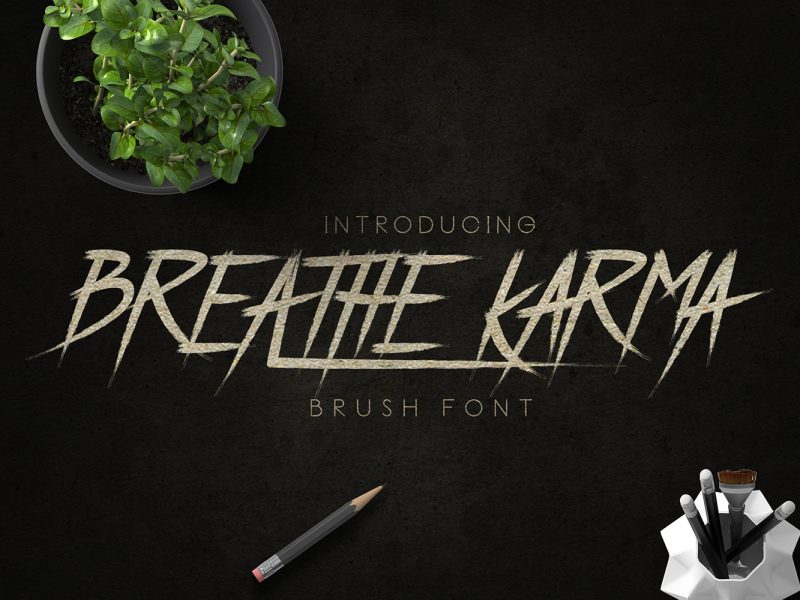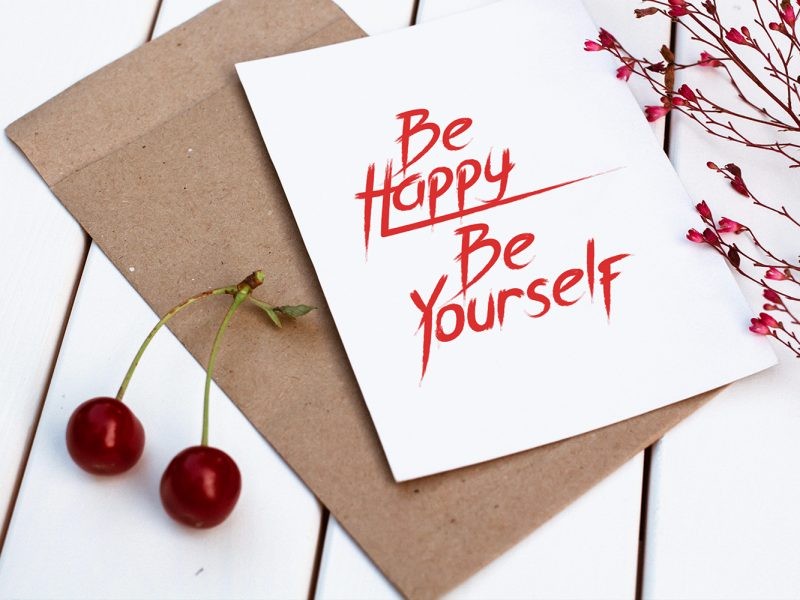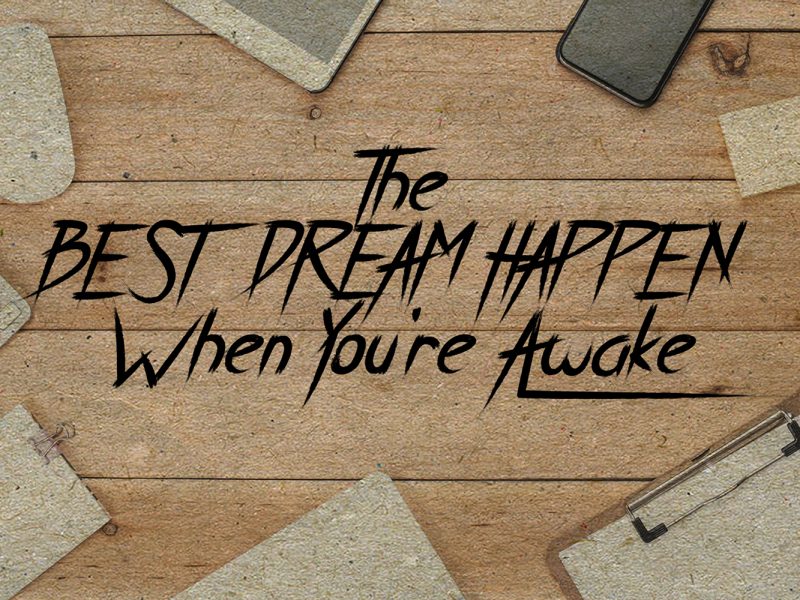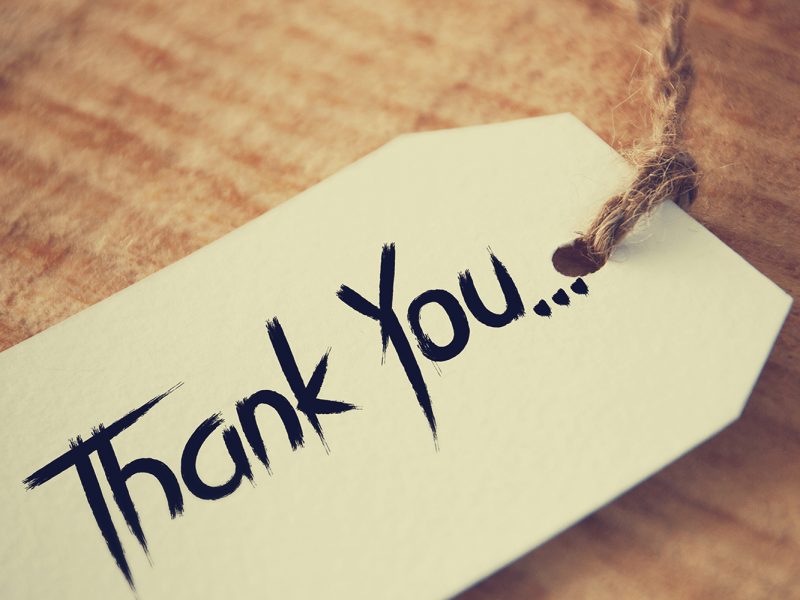
Breathe Karma Typeface
Breathe Karma is a vintage typeface font inspired from classic and old style. suitable to create any branding, product packaging, invitation, t-shirt, label poster etc.